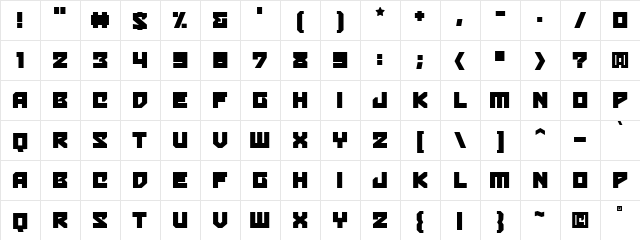
Bulletproof BB Regular
Foundry: Nate Piekos. Blambot.com
Designer: Nate Piekos
Bulletproof BB Family
Design Context for Bulletproof BB
Bulletproof BB is a composed and adaptable typeface that performs quietly and consistently across a wide range of design contexts.